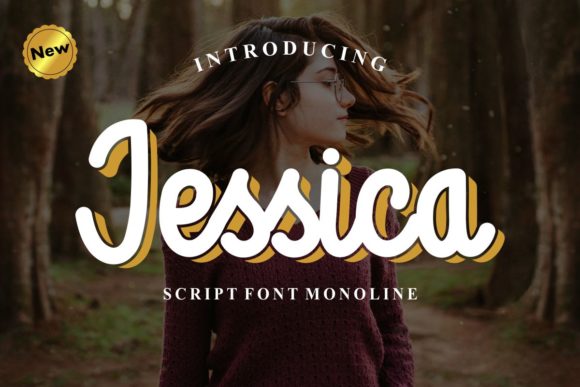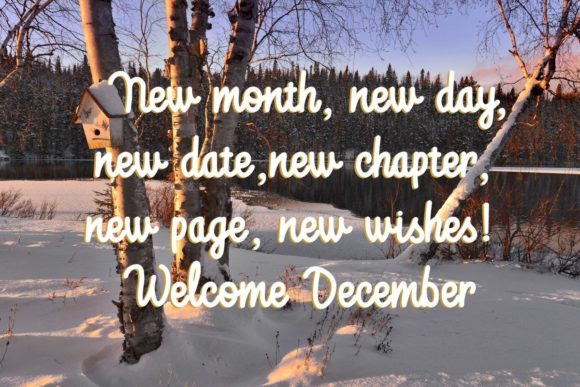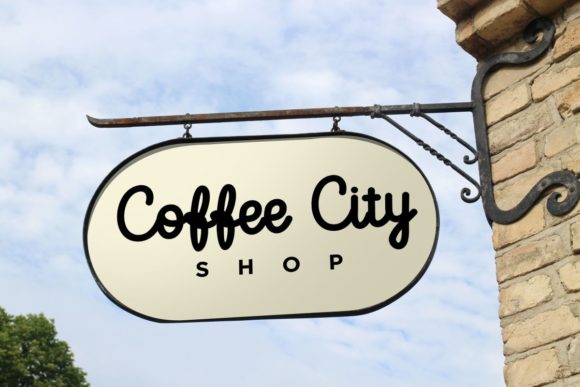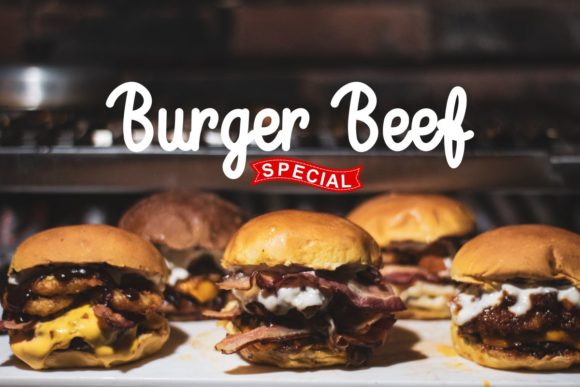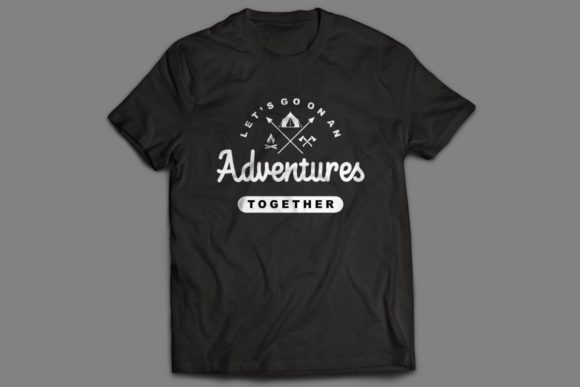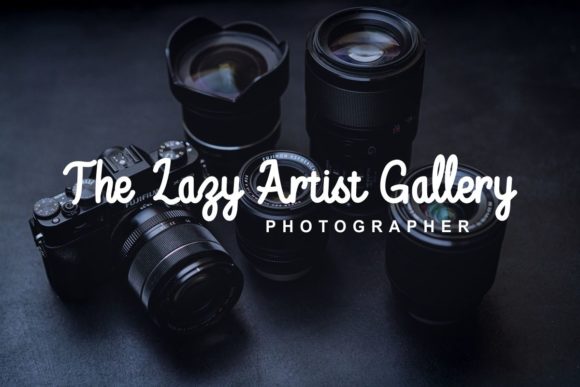
About Jessica Script Font
Jessica is a lovely script font featuring charming, playful characters that seem to dance along the baseline. Add this font to your most creative ideas, and notice how it makes them stand out!